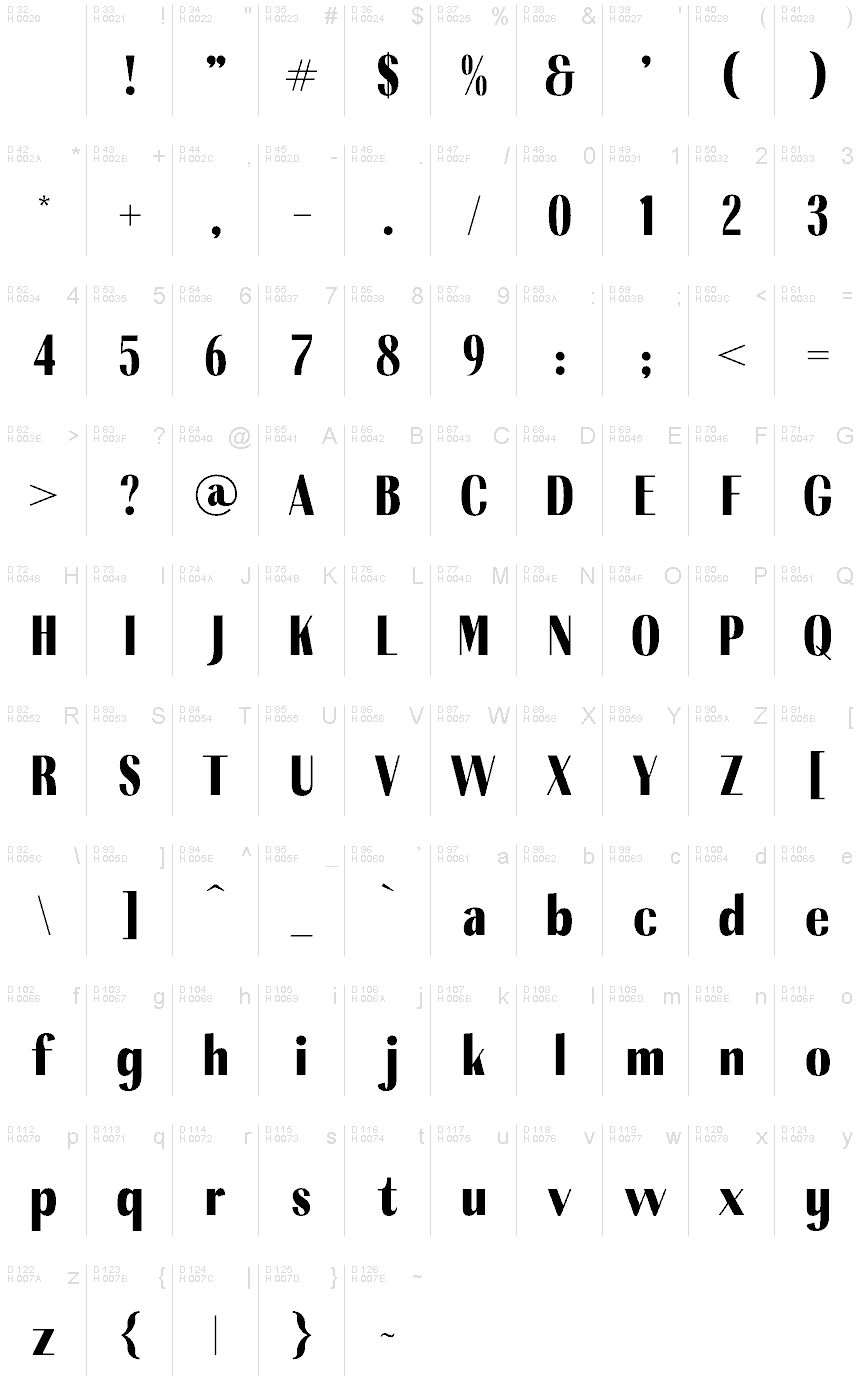
Merolkins
Merolkins font by Storytype Studio is an elegant, modern sans serif font predominantly defined by its bold aesthetic. Perfect for designs that need to stand out, it features contrasting lines and a sophisticated look no matter where it’s used. It uses condensed width and exceptionally bold weight as the primary design elements.
This free sans serif font can find use in editorial designs, posters, advertising materials, branding and packaging projects, social media posts or stories, websites, or mobile applications. Its clean yet distinguished design allows Merolkins to stand out even on business cards that are by definition rather small in size.